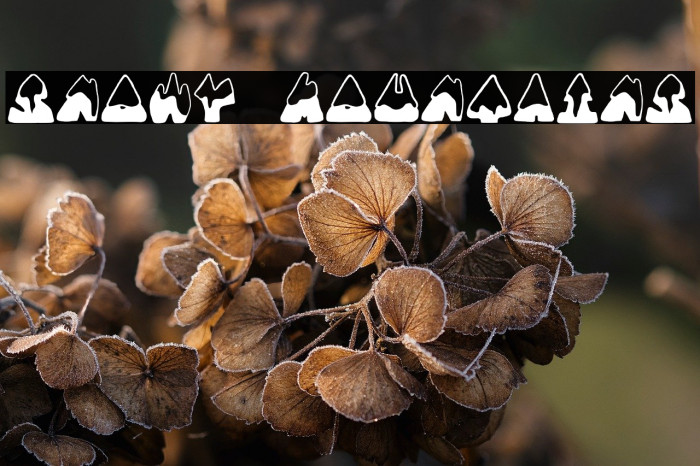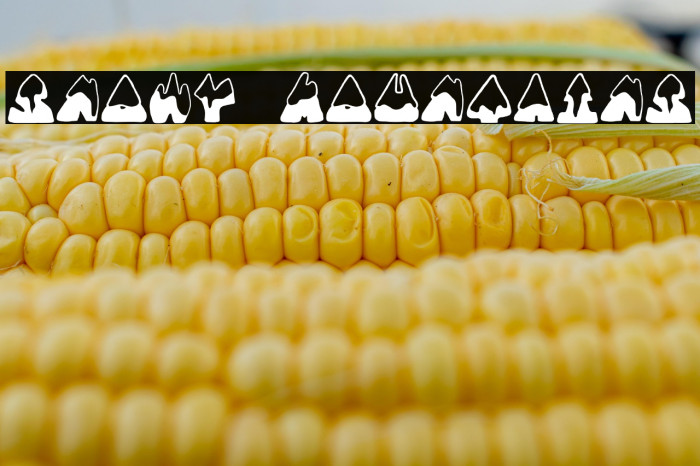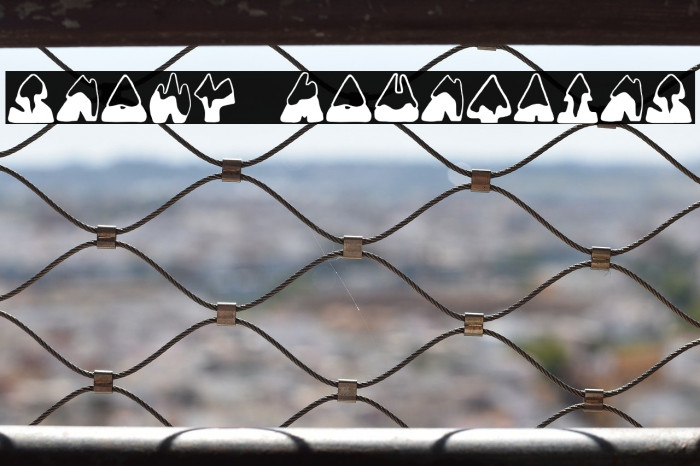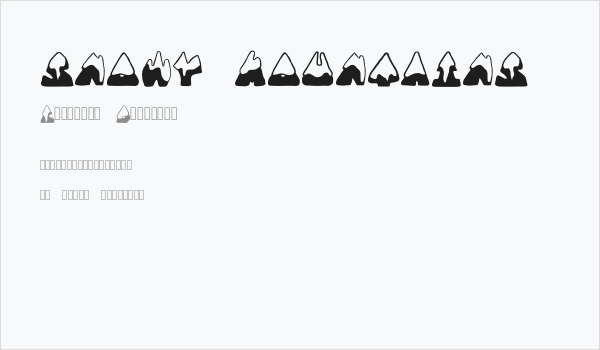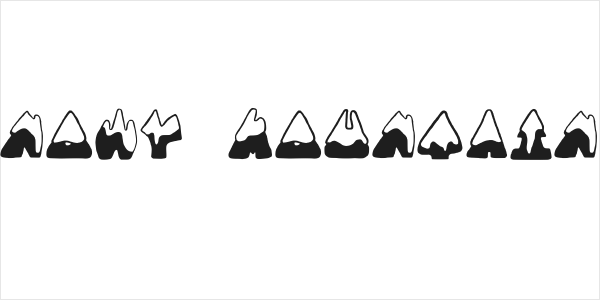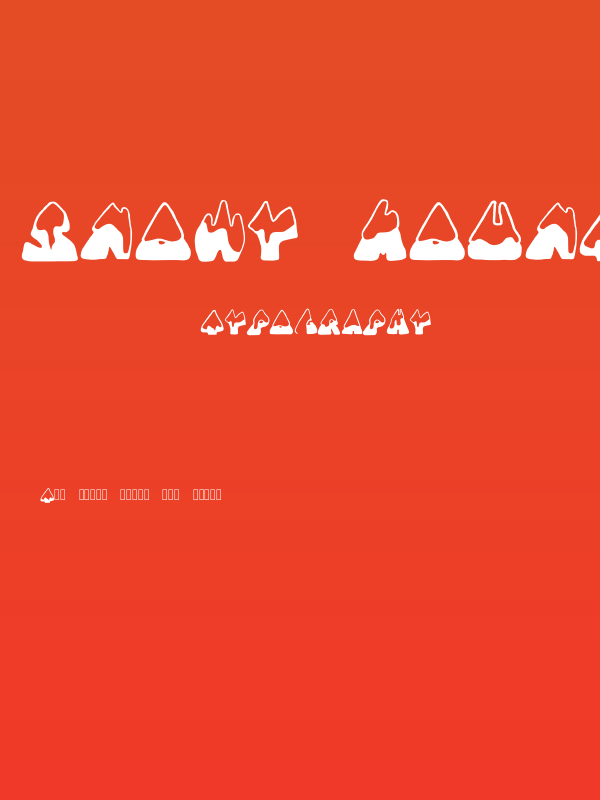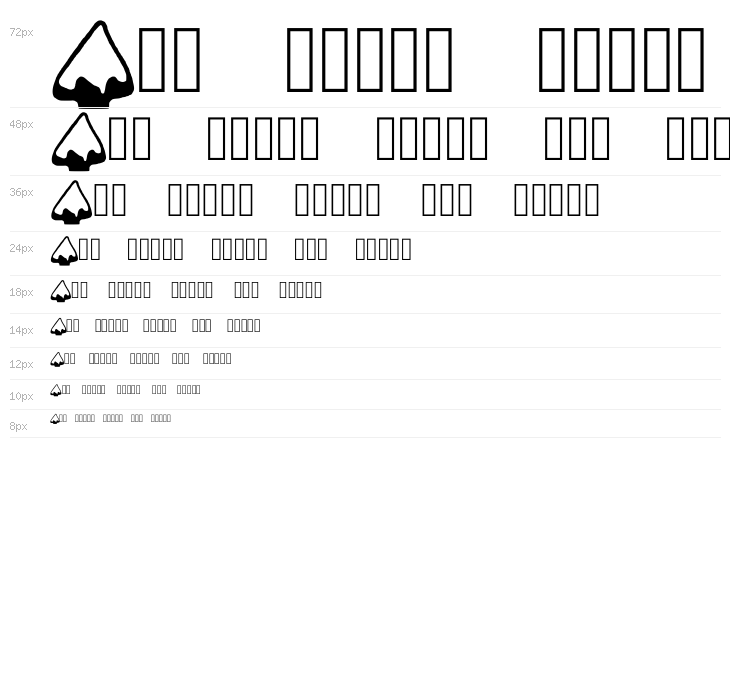
SNOWY MOUNTAINS Font
SNOWY MOUNTAINS Description
This font features a unique and playful design that mimics snow-capped mountains. Each character is creatively crafted to resemble a mountain peak with a snowy top, giving it a whimsical and adventurous feel. The bold and thick strokes provide a strong visual impact, making it ideal for eye-catching designs. The characters are distinct and easily recognizable, with a consistent style that runs throughout the alphabet. This font is perfect for projects that aim to convey a sense of winter, adventure, or nature, and it stands out with its decorative and thematic appearance.
| Proposed Projects | Ideal for winter-themed posters, adventure branding, children's book covers, and outdoor event promotions. |